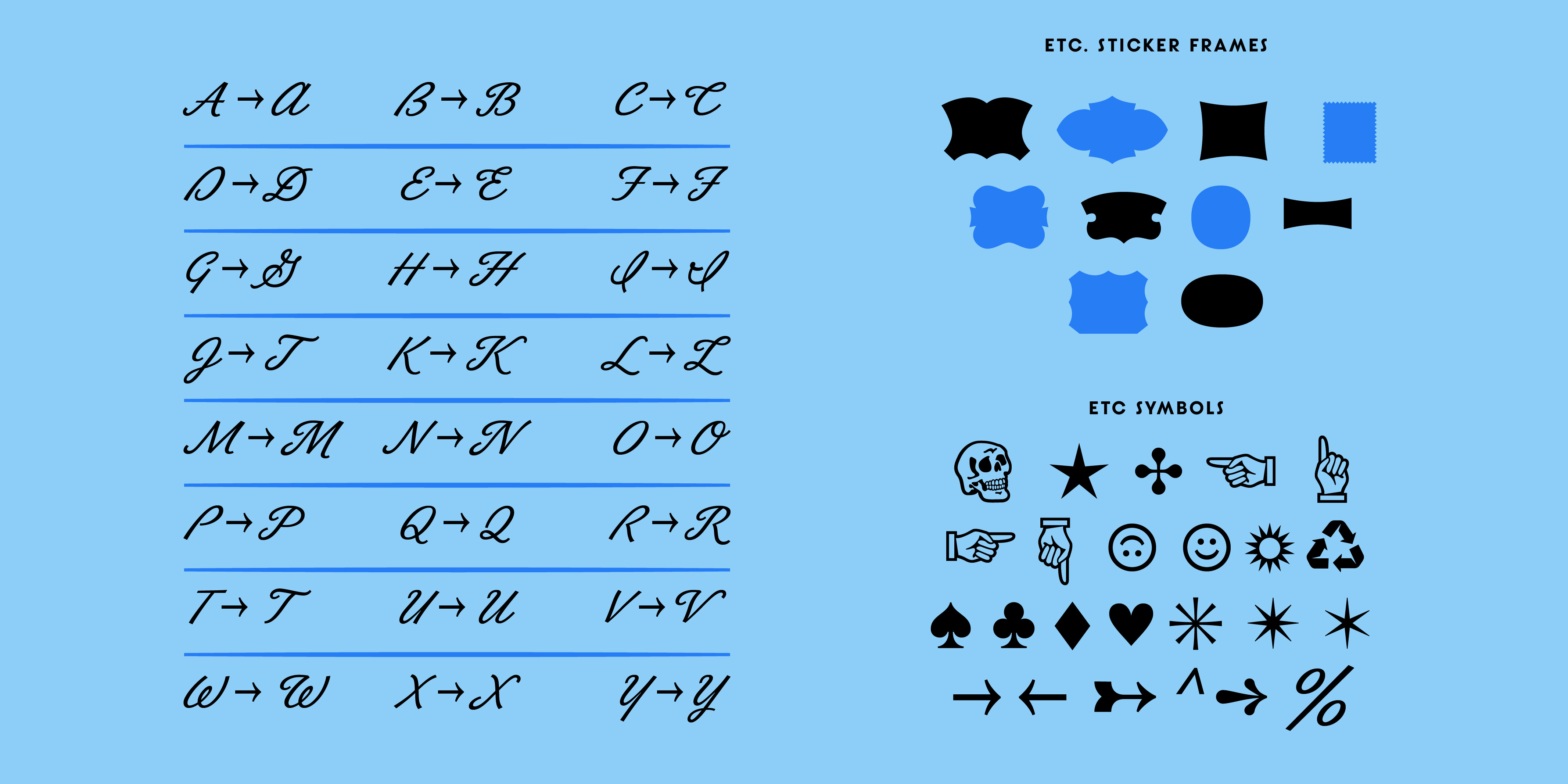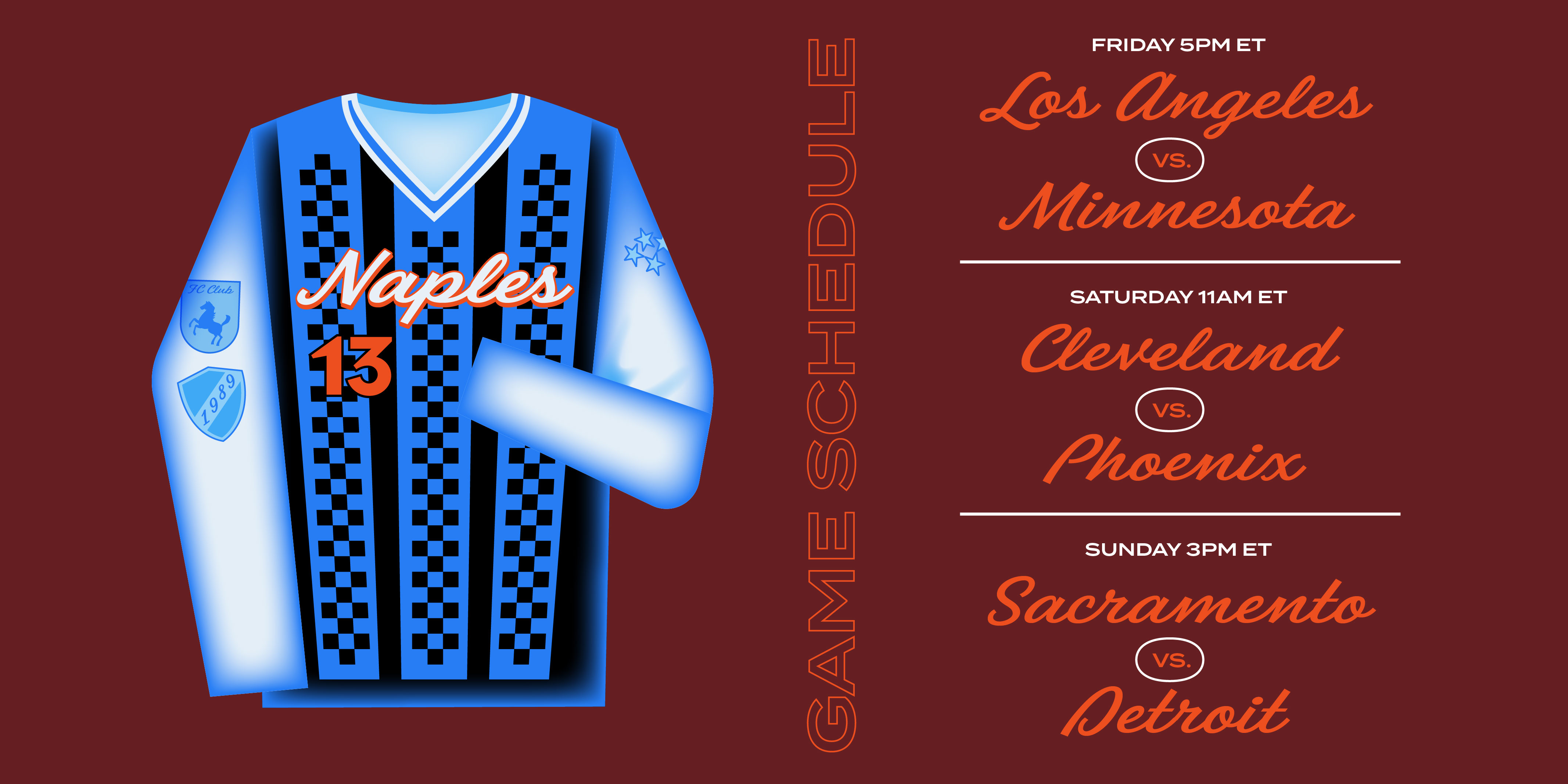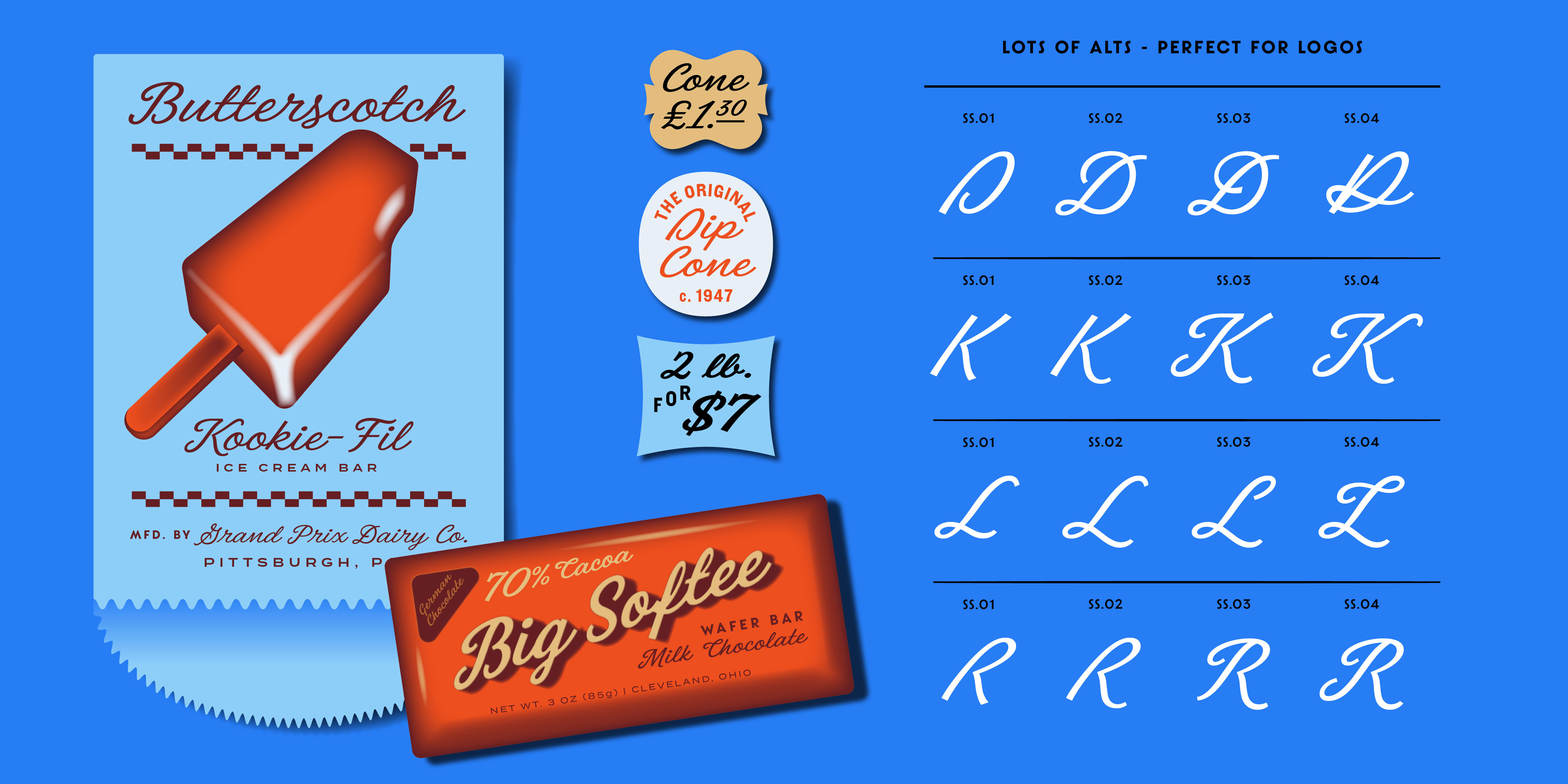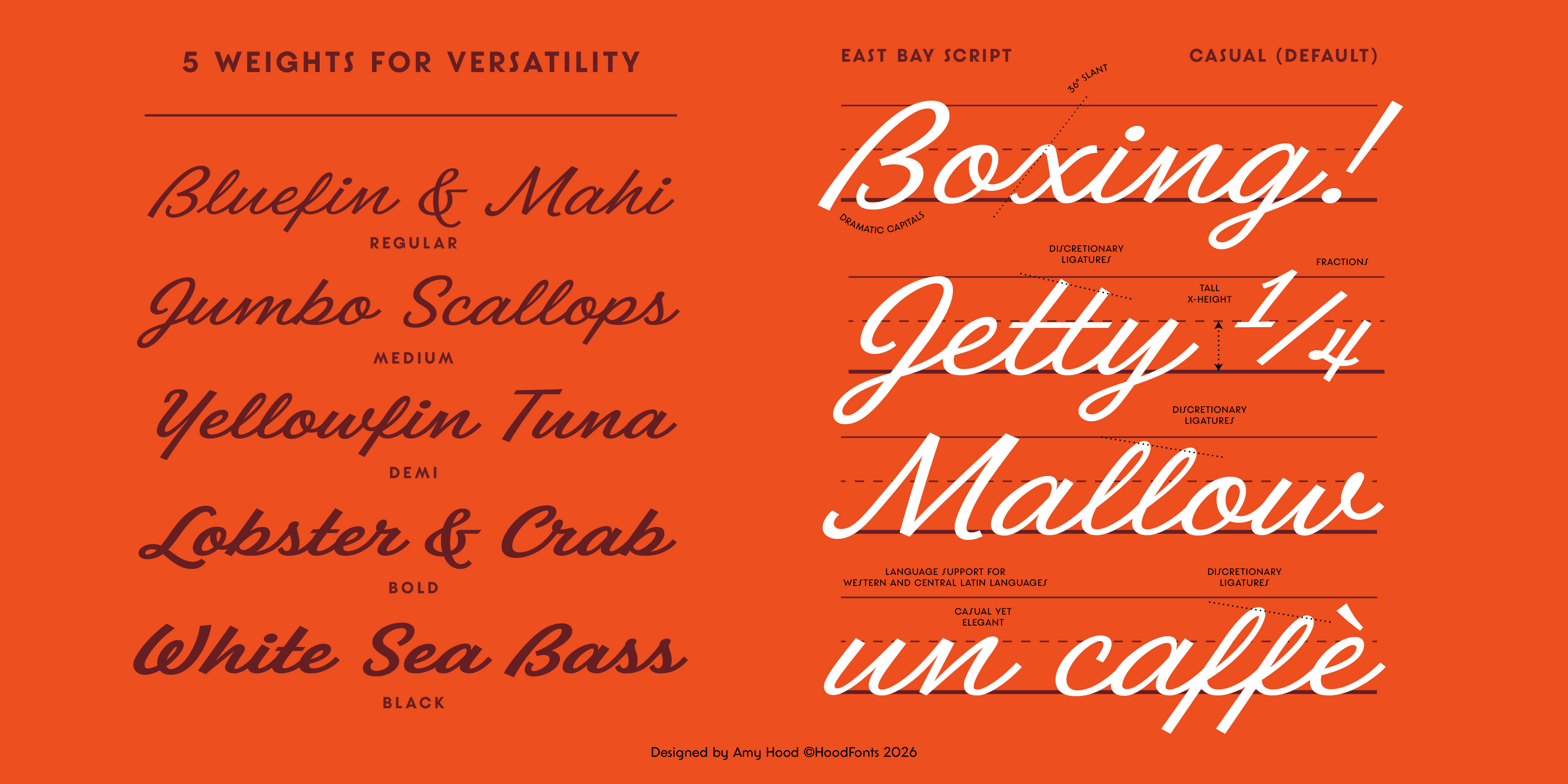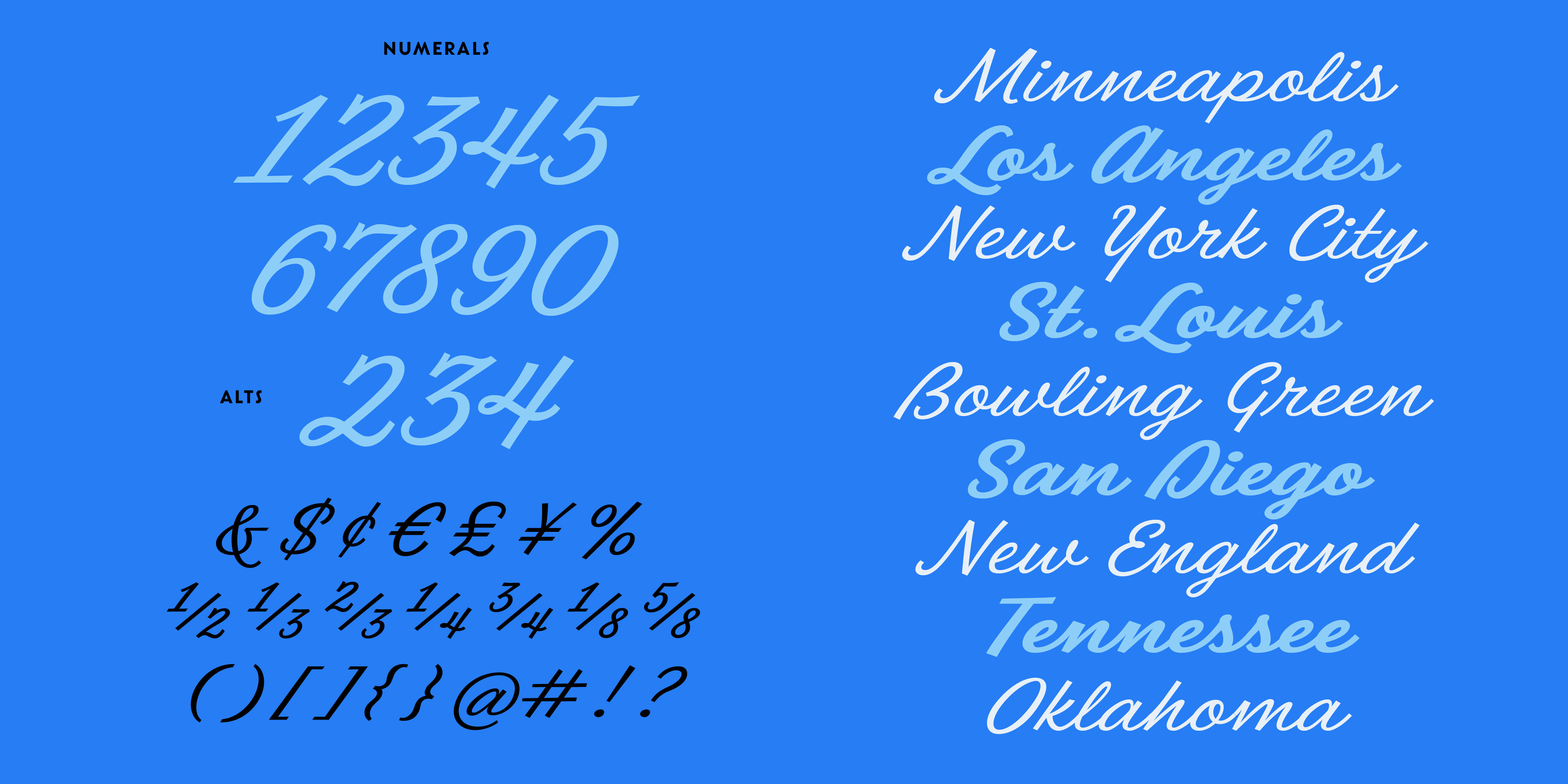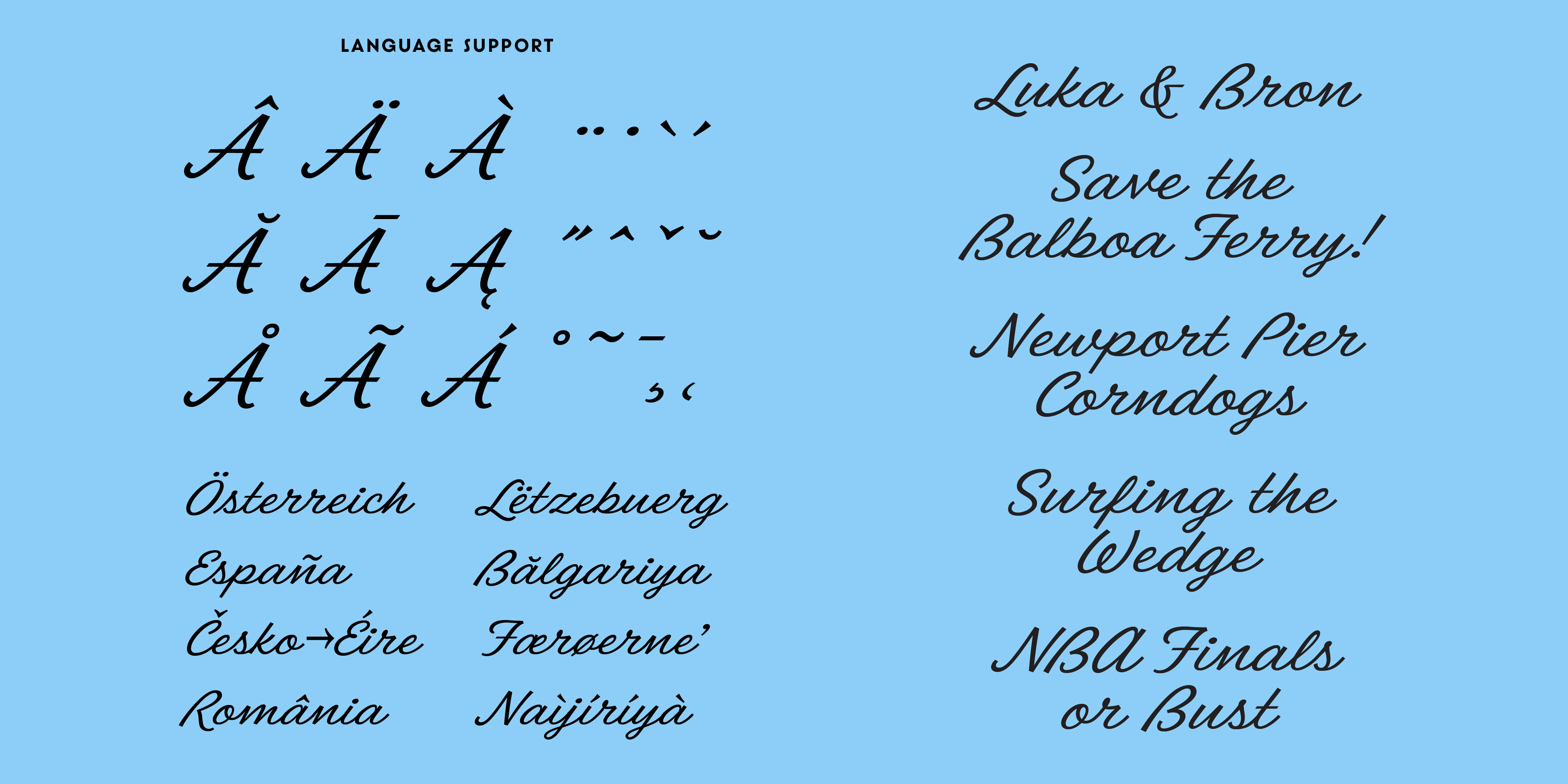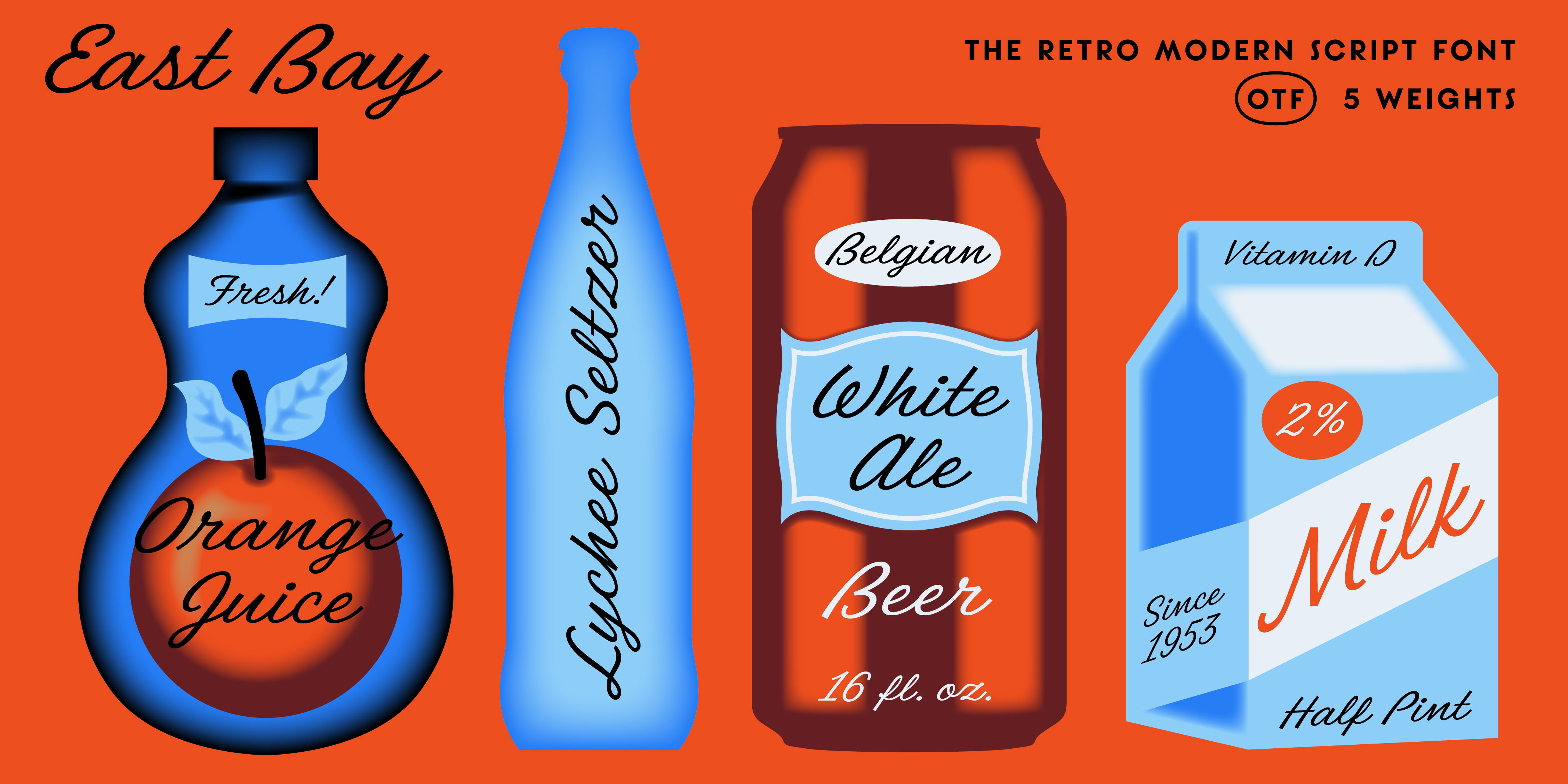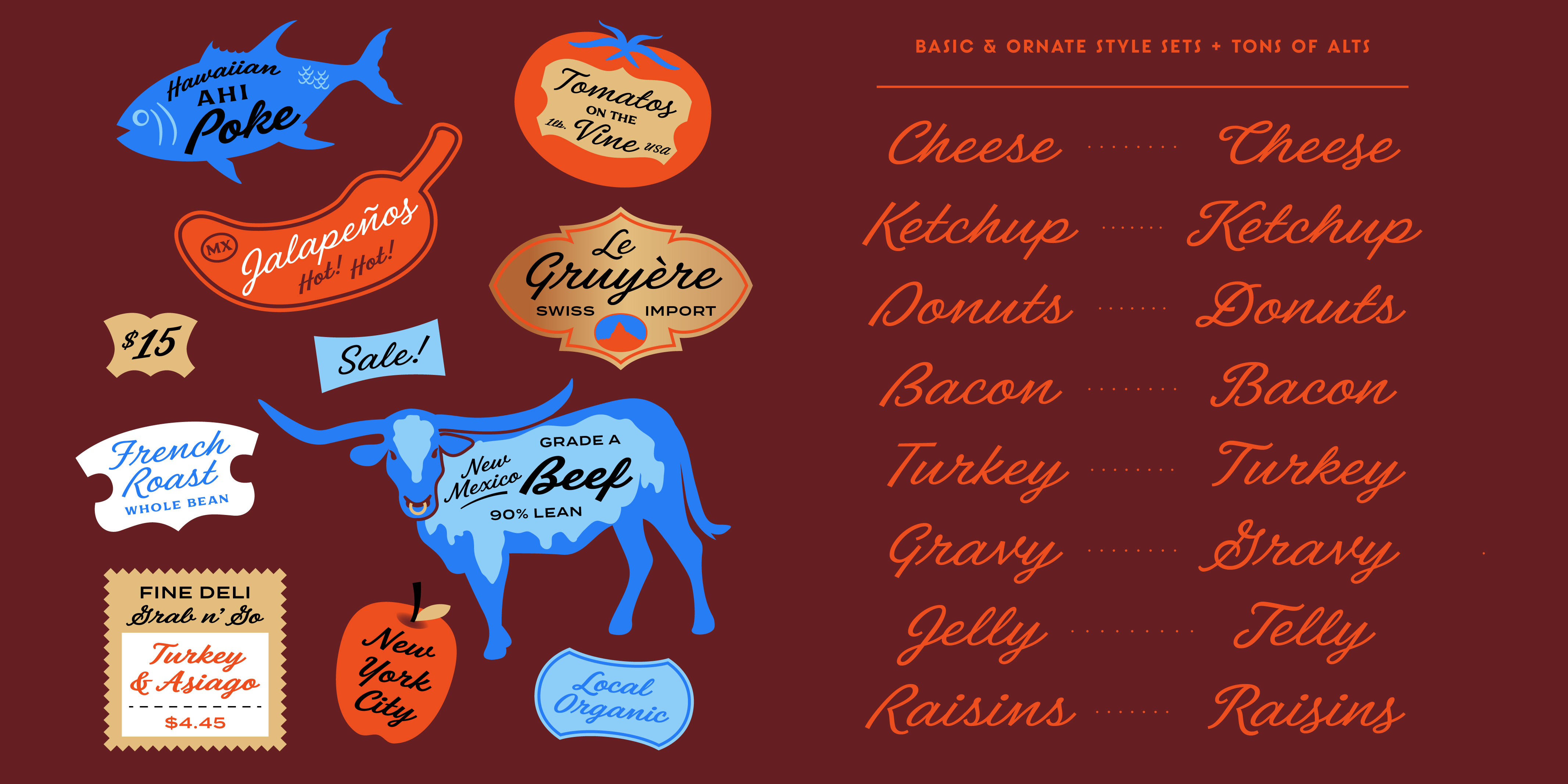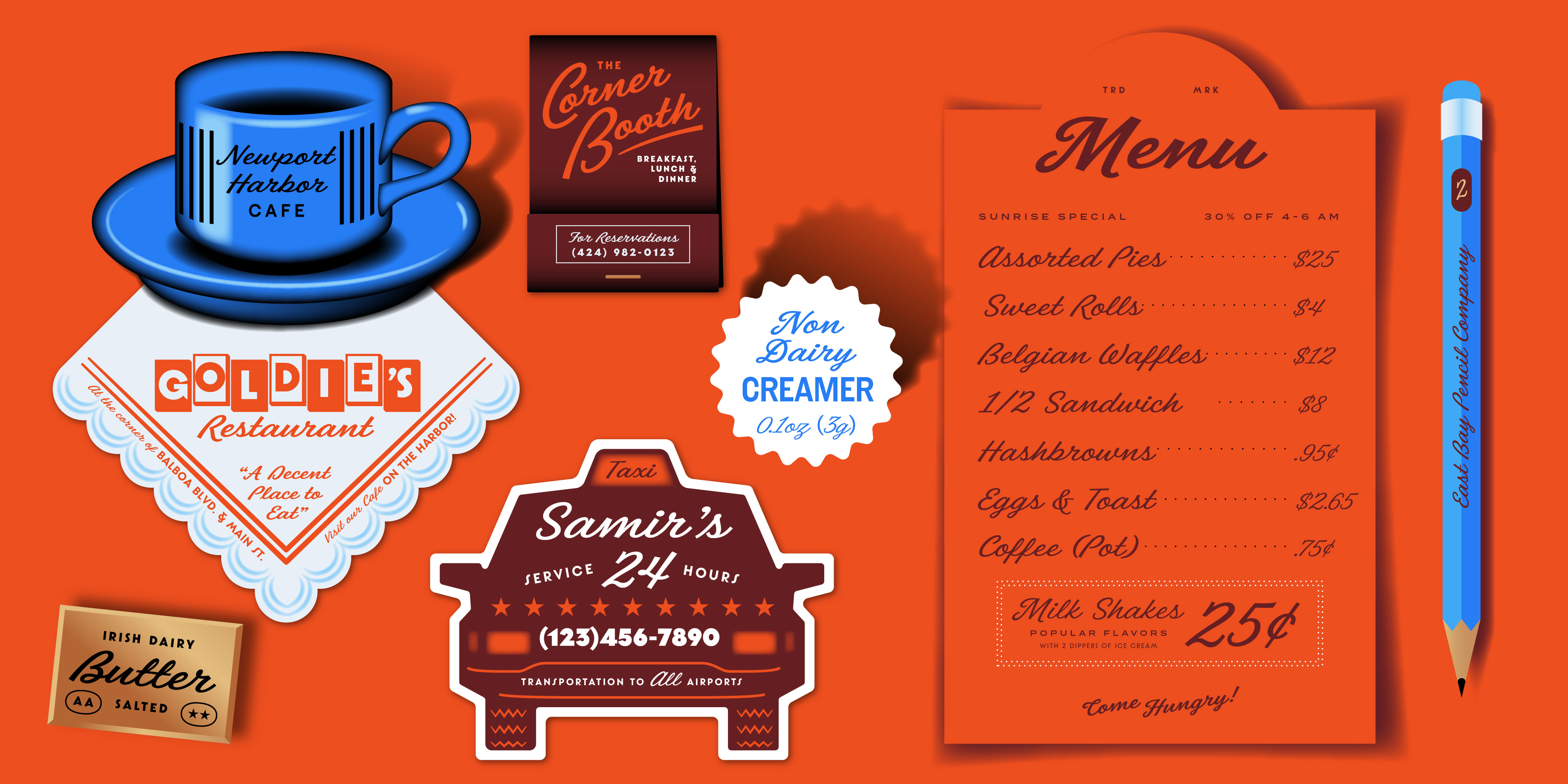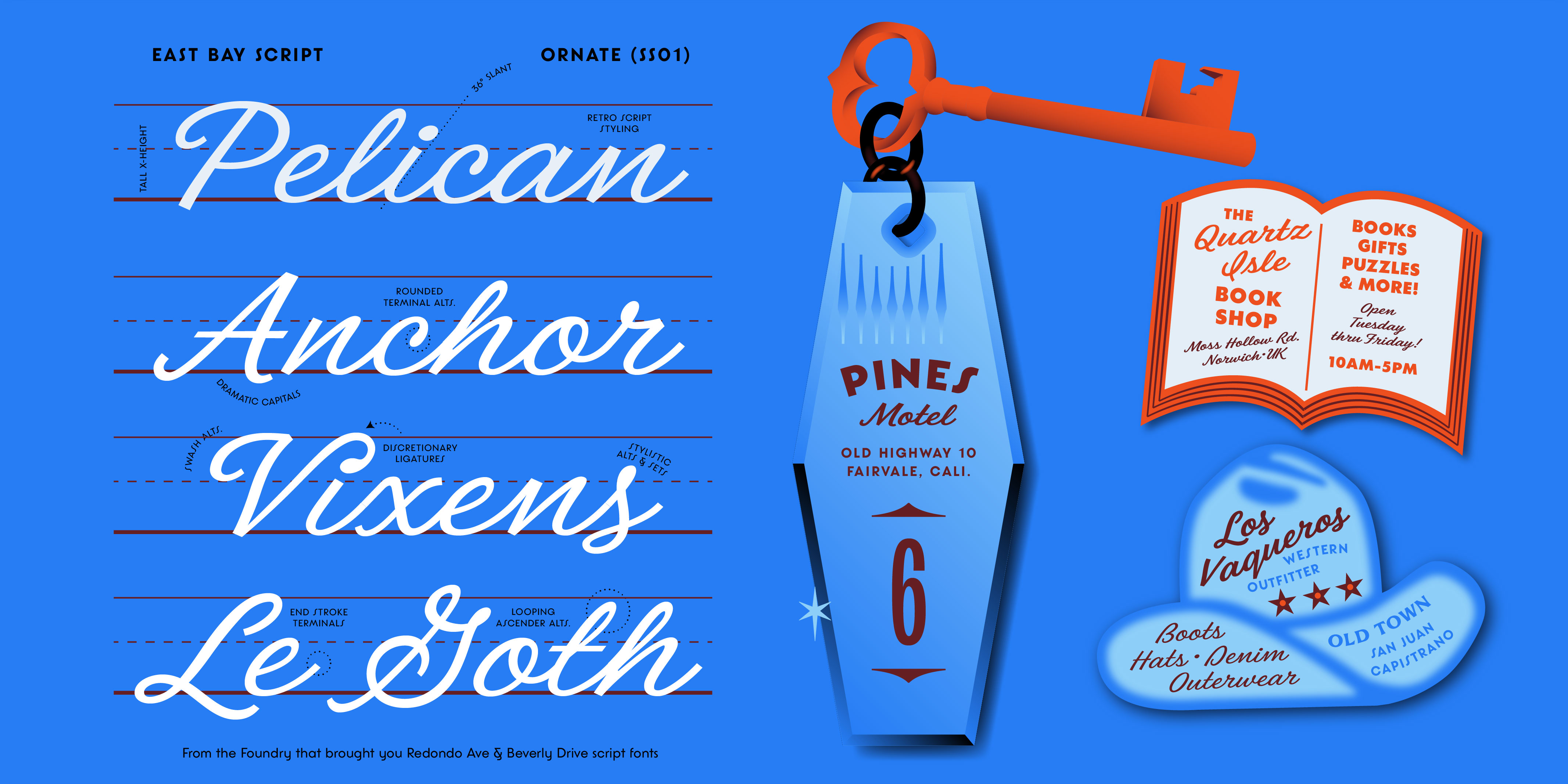
East Bay
Script
5 Styles
Elegant but unfussy. Bougie but understated.
Named after a charming street between the beach and the bay in Newport, East Bay takes cues from the relaxed yet elevated vibes of the Balboa Racquet Club, and the retro charm of the bayside Ferry.
Designed and engineered by Amy Hood of HoodFonts, East Bay blends a modern sensibility with a nostalgic vibe. Most scripts are either very frilly or very casual. East Bay splits lanes and manages an effortless charm.
Her high x-height makes this typeface legible and approachable. Tons of alternates let you control the vibe. As usual, expect fun symbols, dividers and extra glyphs. She’s a giver, not a taker.